A Font "Dating" Game
They say that opposites attract, but then again, similar values and shared histories often lead to the best matches. Those axioms have held true for people, and what’s true for people is also true for typefaces.
That’s the premise of TypeConnection, a matchmaking game for fonts. Designed by Aura Seltzer as an MFA thesis project, TypeConnection is an amusing way to learn how to pair typefaces. To begin the dating game, you select from five archetypal fonts that have been given a personality type. For example, Frutiger is described as: “I am a structural engineer who dreams in grid formation.”
Select one of the five fonts, then choose from four qualities that best represent your dating strategy, such as “Embrace the Other” or “Rely on Family.”
Then, in a something akin to speed dating, your typeface can go out with one of three fonts. The two fonts then are tested for compatibility. Did you make a good match? If you see the two of them out in public — in a printed specimen — you know the two will have a harmonious relationship.
The game is fun and informative. It includes detail about the font’s history and its design. Interactive elements point out design characteristics of the fonts.
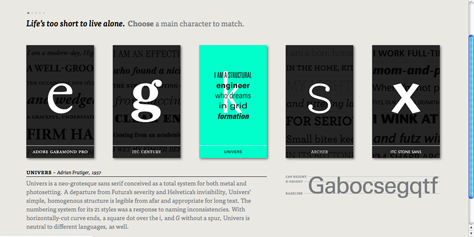
Select a font to start the game.
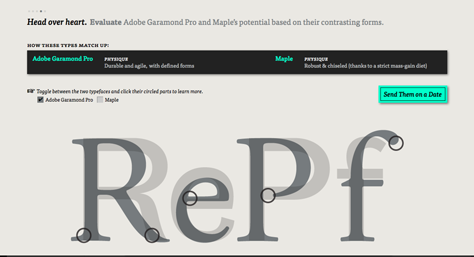
After choosing the “date,” see characteristics that make the fonts compatible — or not.